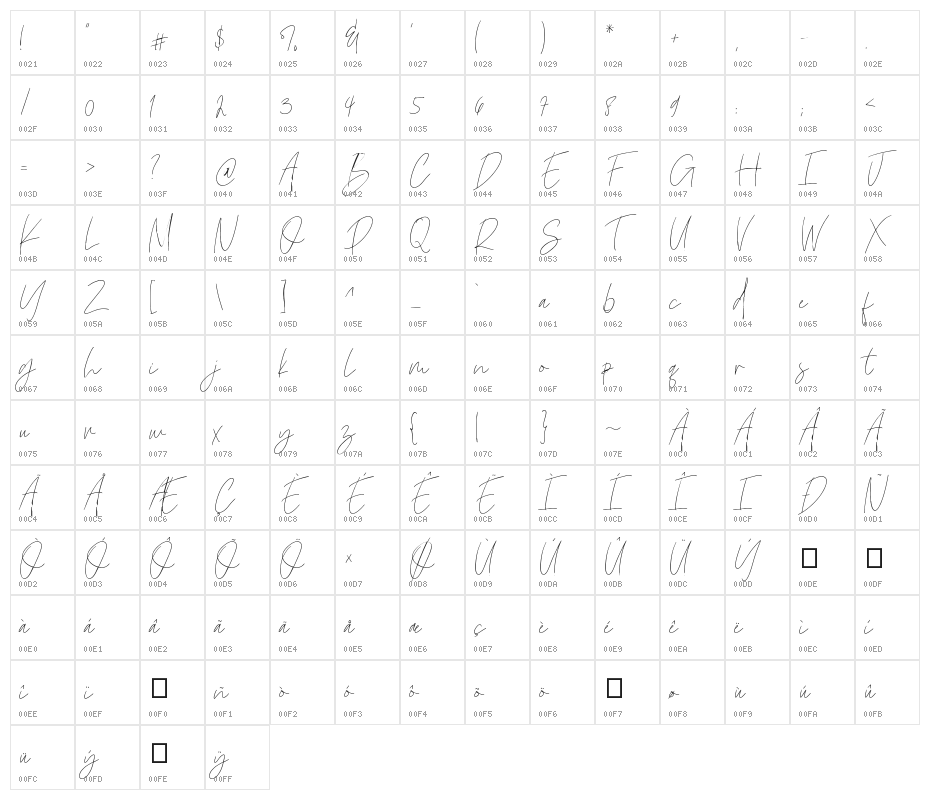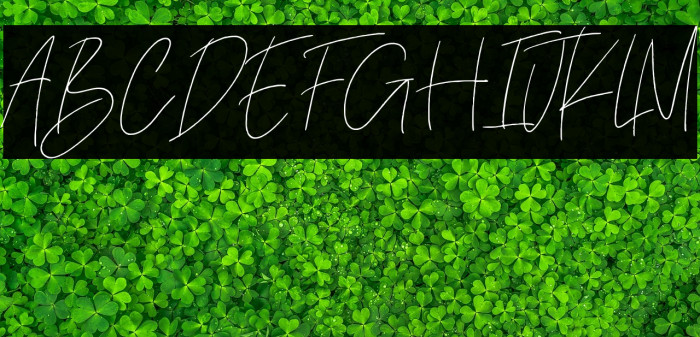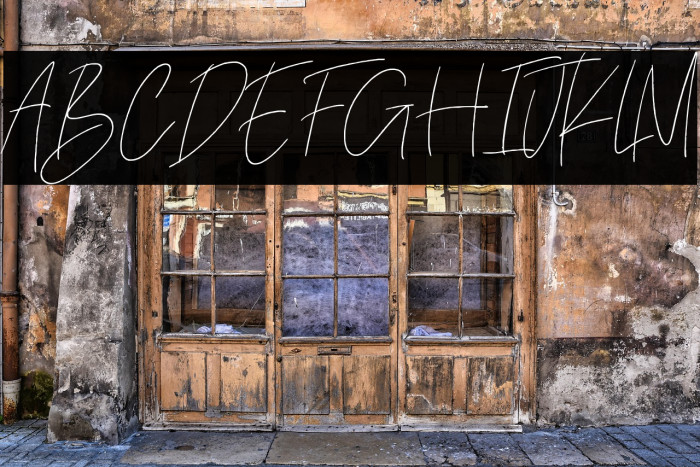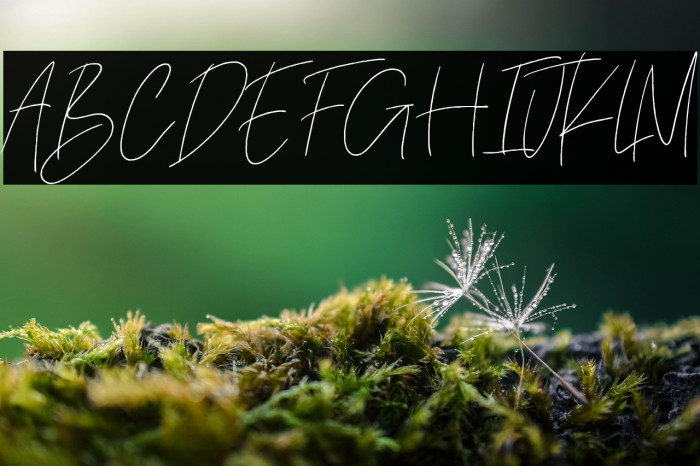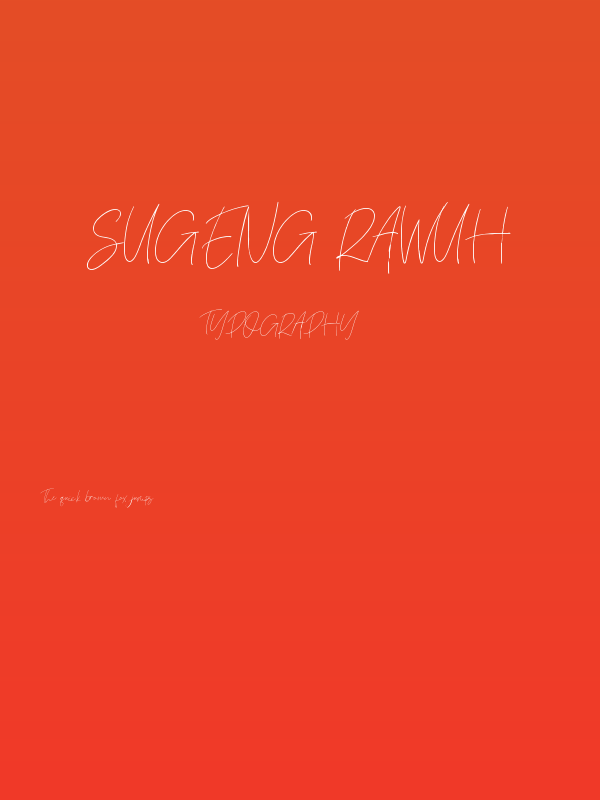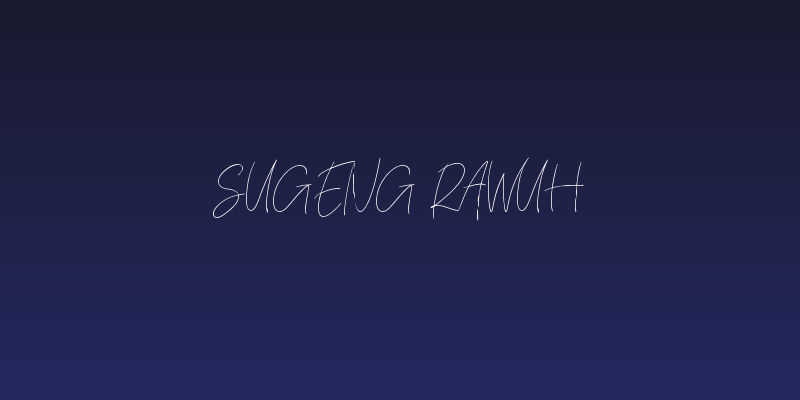
Sugeng Rawuh Font
Sugeng Rawuh Description
This font features a handwritten, cursive style with a casual and flowing appearance. The letters are connected, giving it a natural and personal touch, reminiscent of quick, elegant handwriting. The strokes are thin and slightly uneven, adding to the organic feel. The uppercase letters are tall and slightly slanted, while the lowercase letters maintain a consistent height, enhancing readability. Numbers and special characters follow the same flowing style, ensuring a cohesive look across all characters. This font is perfect for projects that require a personal, informal, yet stylish touch.
| Use Case | Logos, Invitations, Social Media |
| Proposed Projects | Ideal for personal invitations, greeting cards, branding, and social media graphics. |